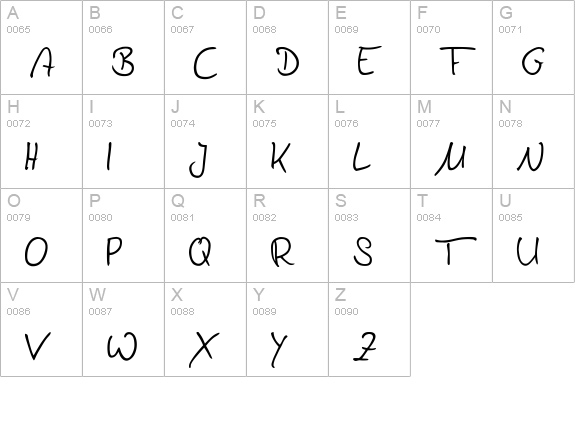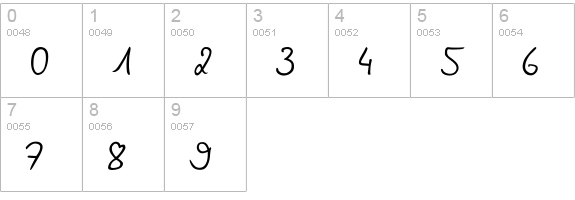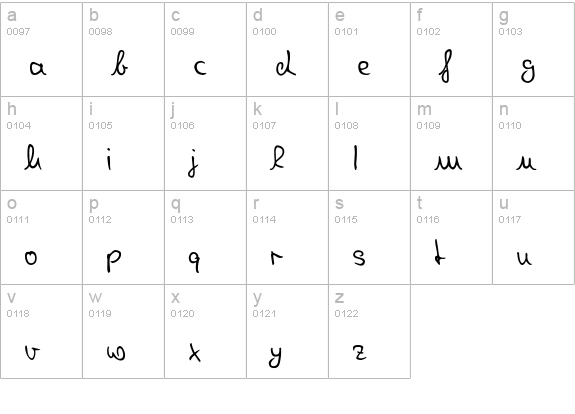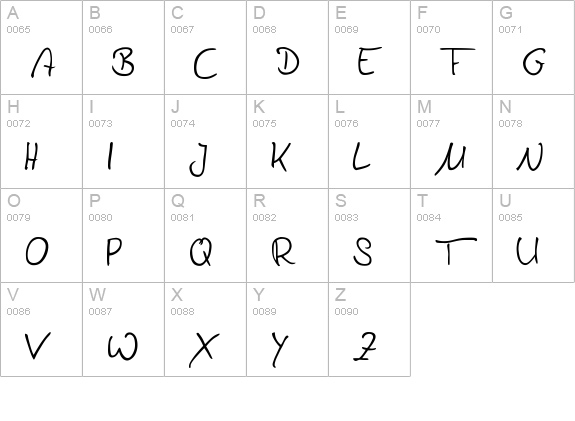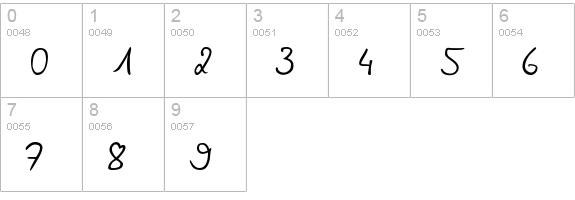
Denise Font Details
Denise Font is a modern and elegant typeface that exudes sophistication and style. With its clean lines and balanced proportions, Denise Font is the perfect choice for projects that require a touch of class and refinement. This versatile font is suitable for a wide range of design applications, from branding and advertising to packaging and web design. Best of all, Denise Font is available for free download at FontsMarket.com. Whether you are a professional designer looking for a high-quality font for your next project or a hobbyist looking to add a stylish touch to your creations, Denise Font is the perfect choice. Download it today and elevate your designs with this beautiful and timeless typeface.